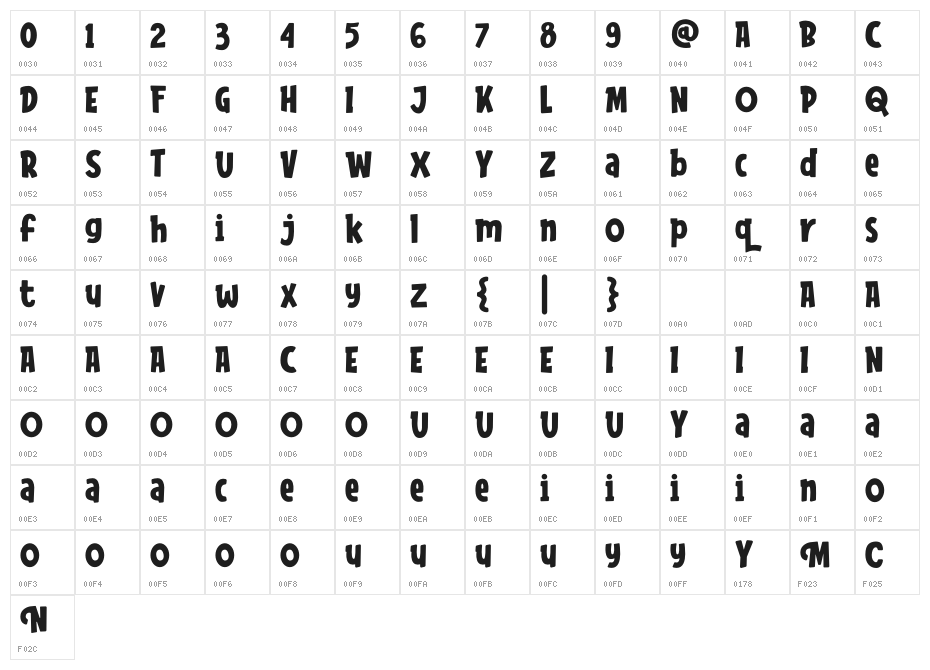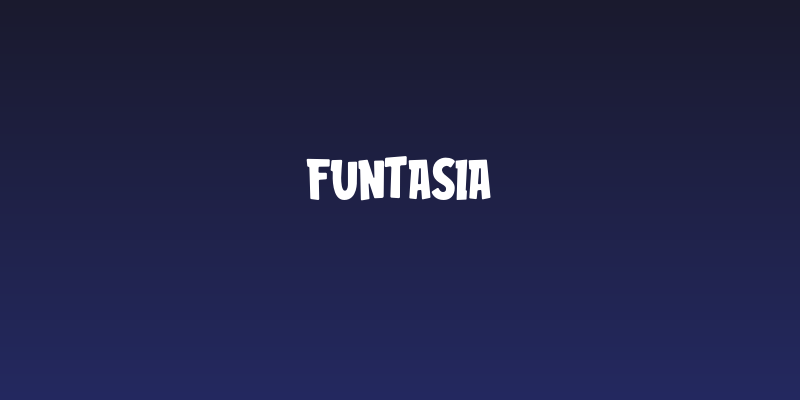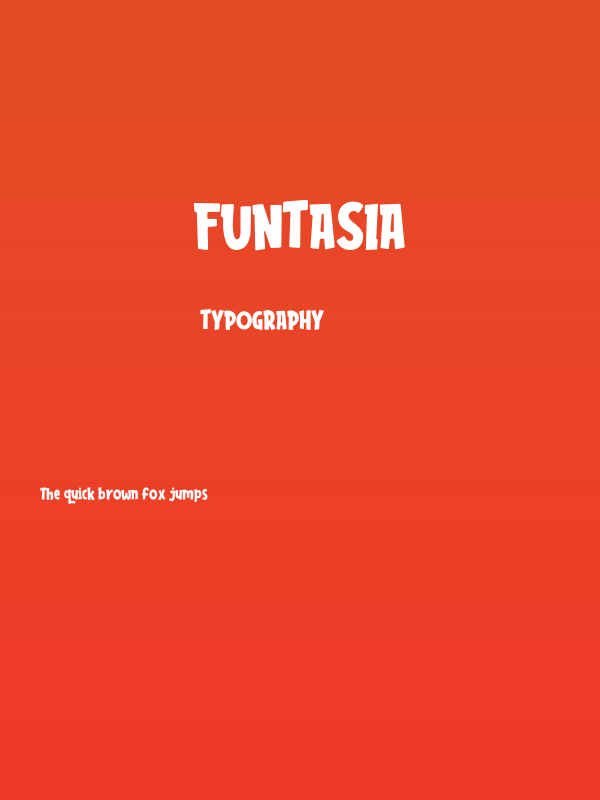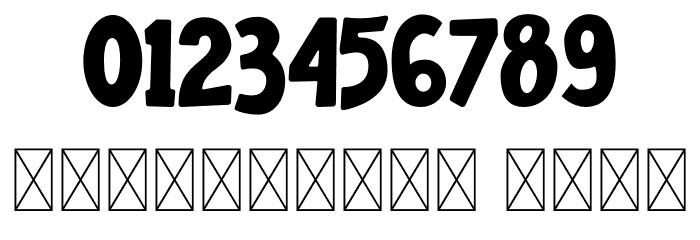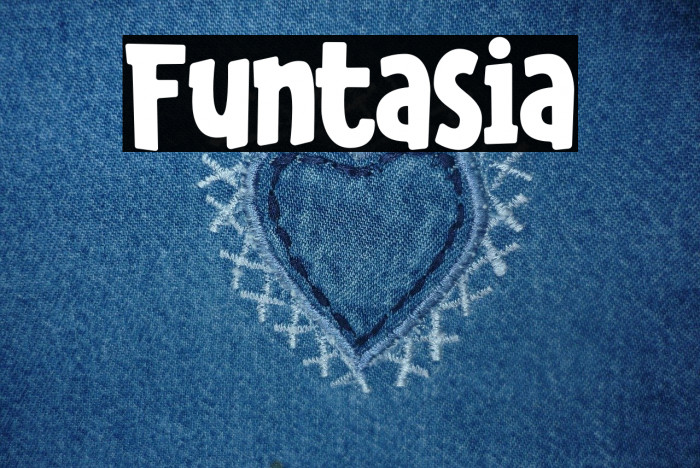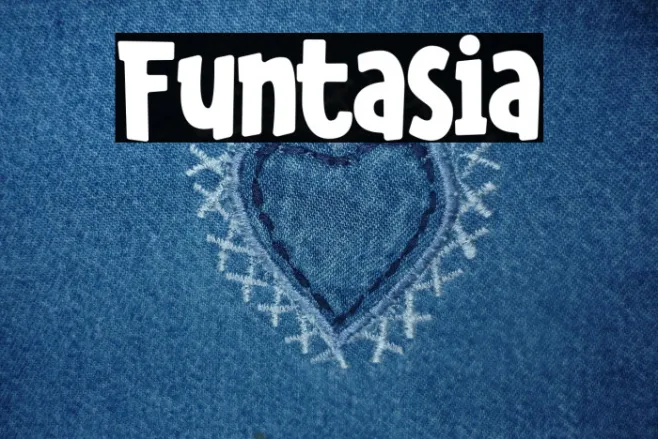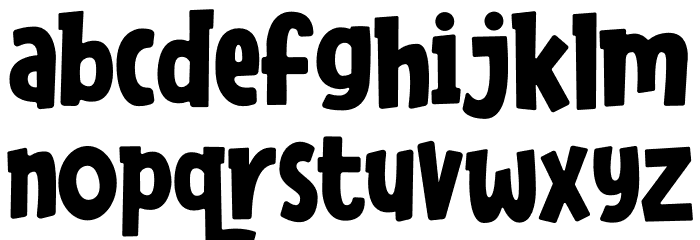
Funtasia Font
Funtasia Description
This playful and whimsical font features bold, rounded characters with a slightly uneven baseline, giving it a lively and dynamic appearance. The uppercase letters are robust and eye-catching, while the lowercase letters maintain a consistent style that complements the overall design. The numerals are equally bold, ensuring readability and consistency throughout. The font's unique style is further enhanced by its wide character spacing, which adds to its playful nature. Ideal for projects that require a fun and engaging aesthetic, this font is perfect for children's books, playful branding, and creative posters.
| Proposed Projects | Children's books, playful branding, creative posters, and event invitations. |